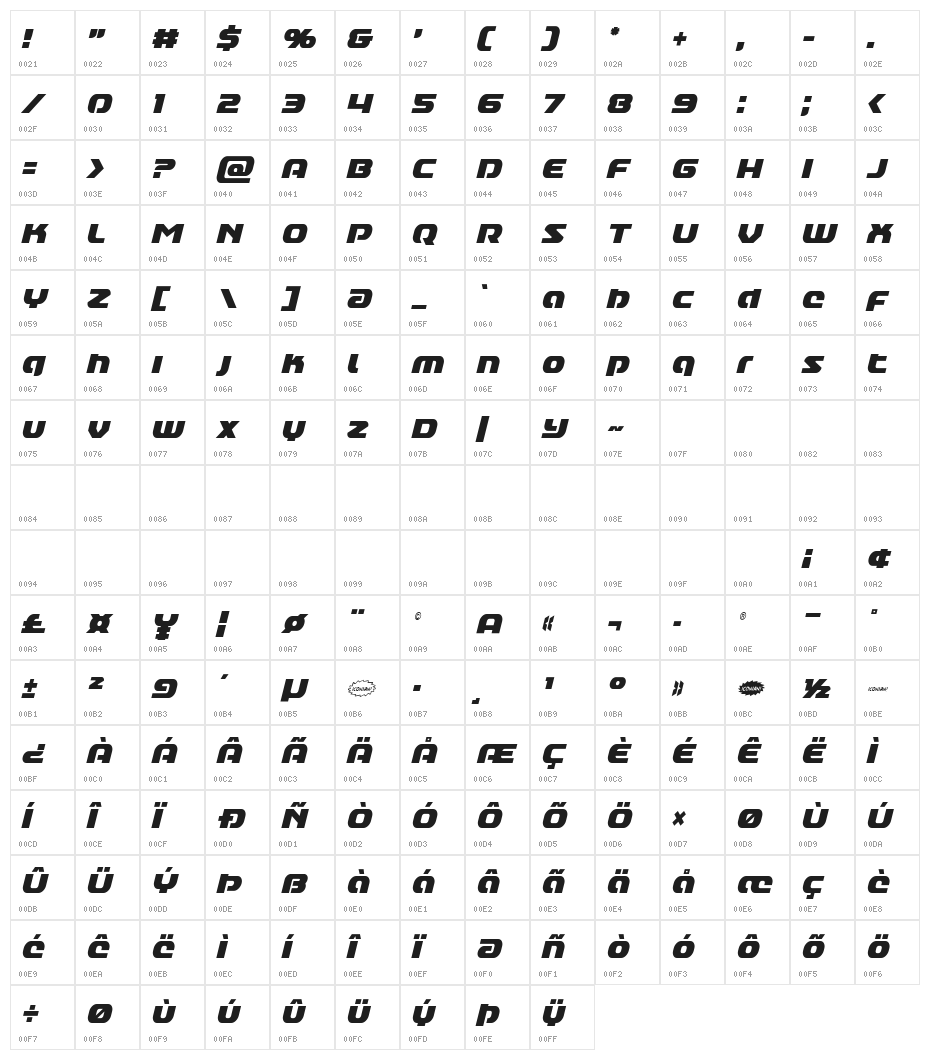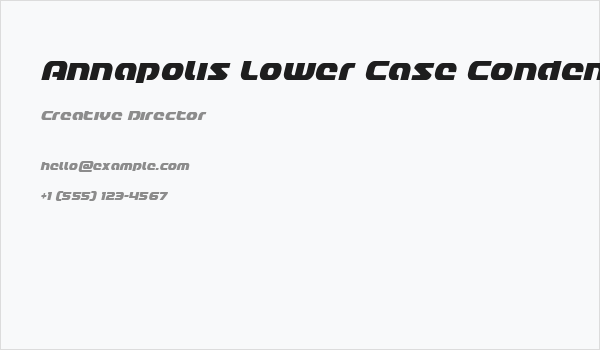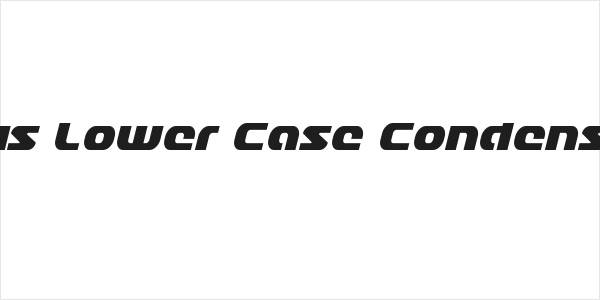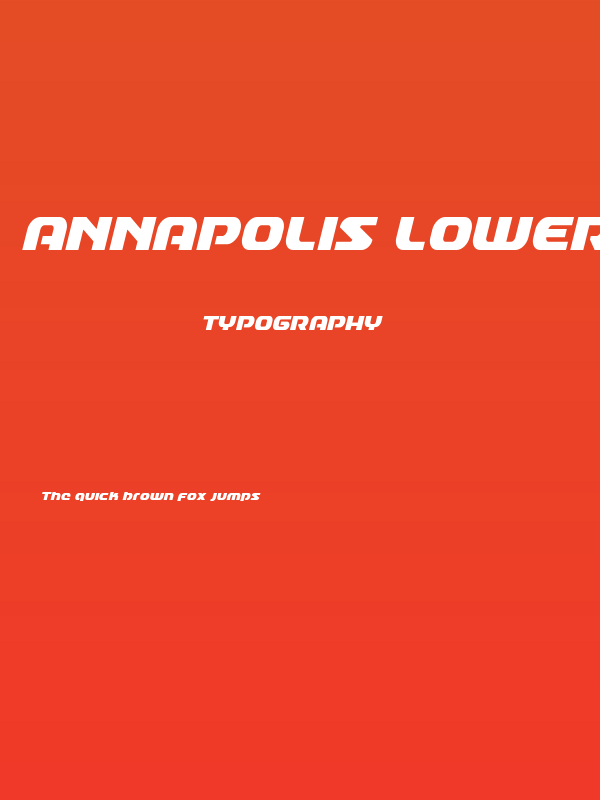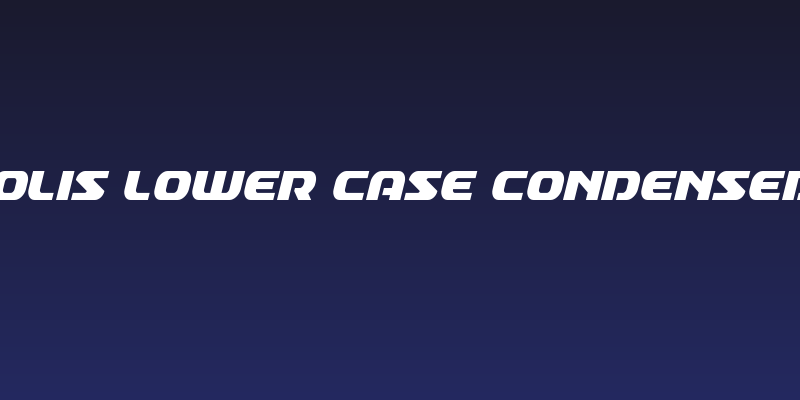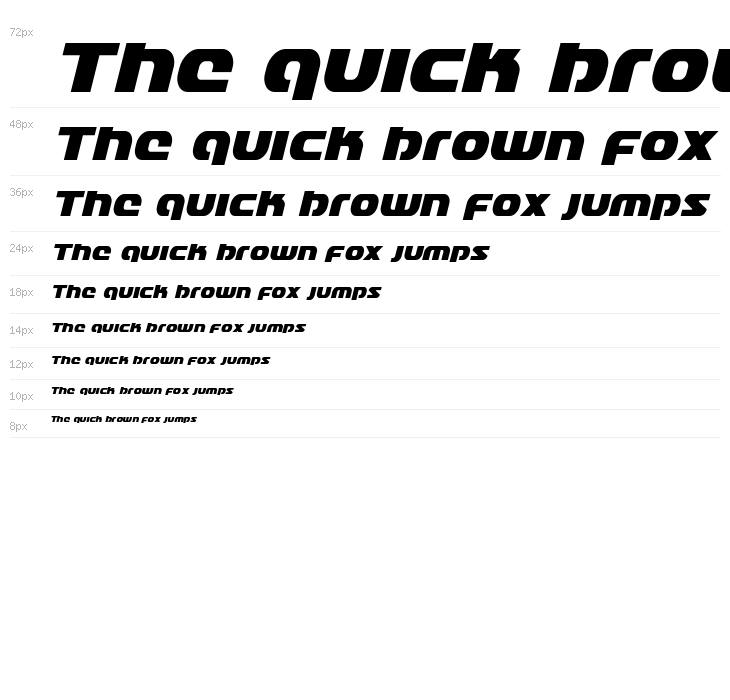
Annapolis Lower Case Condensed Italic Font
Annapolis Lower Case Condensed Italic Description
This font features a bold and dynamic style with a condensed and italicized form. The characters exhibit a strong forward slant, giving a sense of motion and energy. The strokes are thick and consistent, providing a robust appearance. The uppercase and lowercase letters maintain a uniform width, enhancing the condensed look. The numerals and special characters are designed to match the overall style, ensuring cohesion across all elements. This font is ideal for making a bold statement in any design.